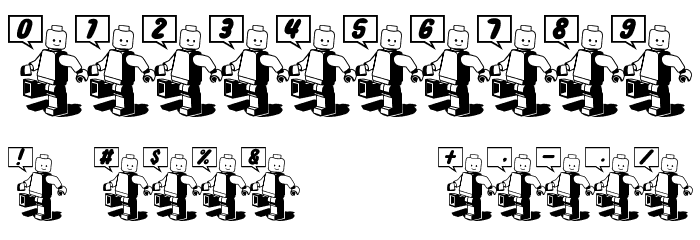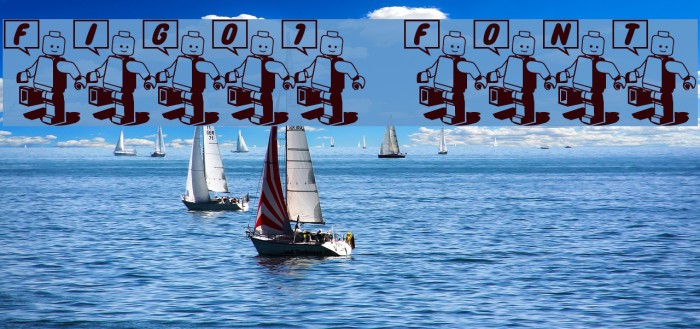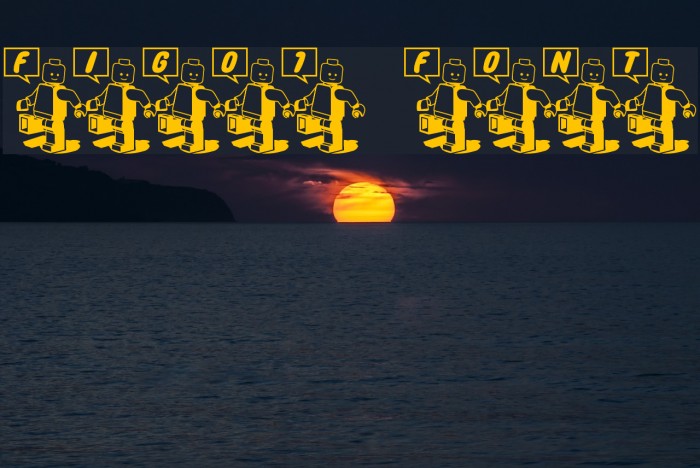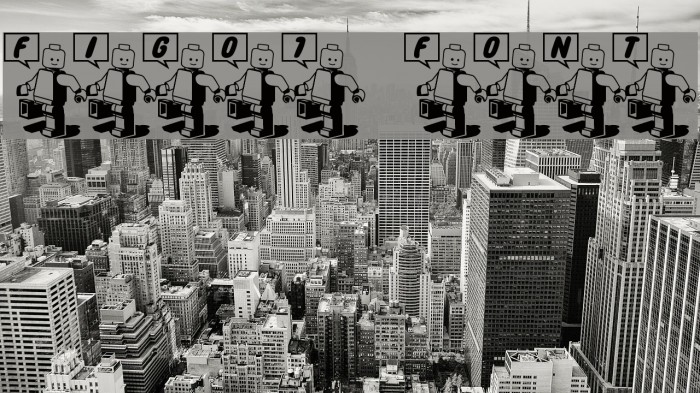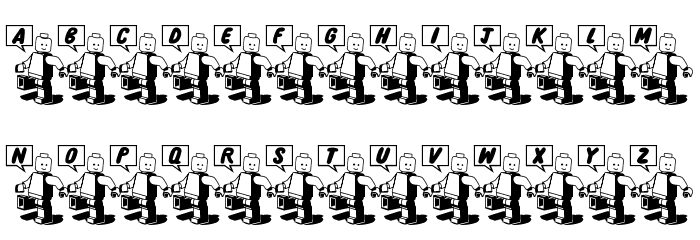
fig01 Font
This unique and playful font features characters that are creatively integrated into the design of a cartoonish figure holding a sign. Each letter, number, and special character is presented within a square held by a stylized character, adding a whimsical and humorous touch. The font is bold and eye-catching, with a hand-drawn aesthetic that gives it a lively and dynamic feel. The characters are well-defined, with a consistent stroke width that maintains readability while adding a fun element to the text. This font is perfect for projects that require a lighthearted and engaging visual style.
A playful, cartoonish font with characters held by a stylized figure.
• Proposed Projects: Ideal for children's books, comic strips, playful branding, and educational materials.
• Category: Decorative/Display
• Bold: Yes
• Italic: No
• Weight: Bold
• Width: Normal
• Character Spacing: Normal
• Contrast: Low
• Overall Style: Playful, Cartoonish, Whimsical
• Use Case: Headlines, Logos, Posters